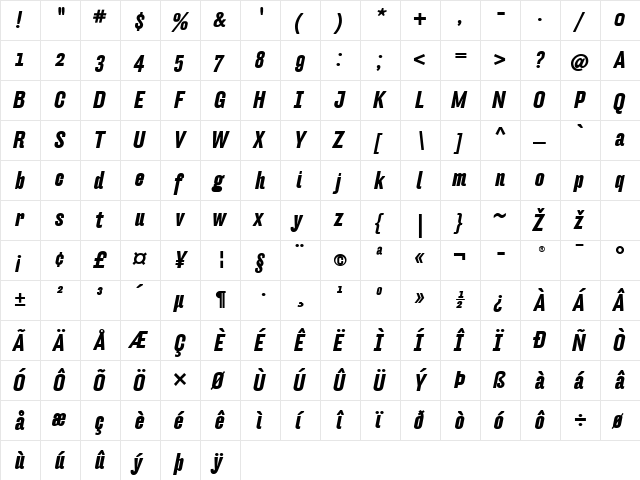
Hydra-BoldItalic Regular
| Designer | Silvio Napoleone |
Design Context for Hydra-BoldItalic Typeface
Hydra-BoldItalic offers clean, dependable letterforms without strong stylistic allegiance, making it a practical choice for designers who need flexibility. The slanted form adds forward momentum and visual energy. Its bold stroke weight gives it real presence on the page.